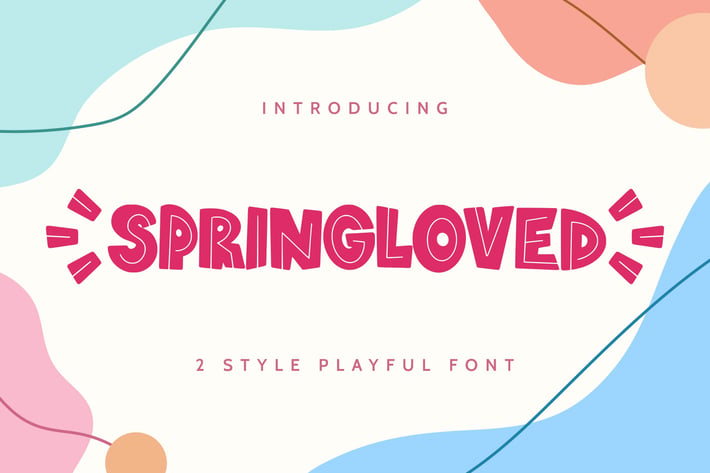
Springloved - Playful Font
Springloved is a Stylish & Playful Sans full of charm . It will take any DIY-project to the next level!
Springloved is perfect for Craft , product packaging, product designs, label, branding projects, logo, wedding designs, social media posts, advertisements, watermark, invitation, stationery and any projects